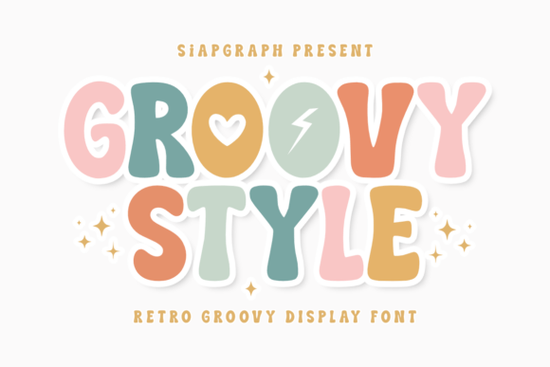
The Groovy Style Font is a retro display typeface built for crafters, designers, and anyone selling print-on-demand products. Inspired by 1970s typography but designed with a modern, playful twist, it features chunky, wavy letters decorated with hearts and lightning bolts. If you need a bold, readable font that's also easy to cut and weed with a vinyl cutter or use in sublimation projects, this one was made with that exact purpose in mind.
What Makes Groovy Style Font Different From Other Retro Fonts?
Plenty of retro fonts exist, but not all of them are practical for crafting. A lot of decorative typefaces look great on screen but turn into a headache when you try to cut them with a Cricut or Silhouette machine. Thin swashes, tight kerning, and overly detailed curves can make weeding take forever.
Groovy Style Font avoids those problems. The letterforms are chunky and bold, with clean lines that hold up well on vinyl, HTV, and printed stickers. The wavy, playful shape gives it that unmistakable 1970s feel, while the built-in symbols (like hearts and lightning bolts) add personality without requiring extra design elements.
Compared to something like a more classic display typeface with elegant curves, Groovy Style leans heavily into fun and energy. It's not trying to be subtle and that's exactly why it works so well for casual, high-energy designs.
Can I Use This Font For Vinyl And Sublimation Projects?
Yes, and that's really where this font shines. The designer specifically optimized it for the crafting community, which means:
- Vinyl decals The bold strokes make weeding straightforward, even for beginners.
- HTV for t-shirts Letters are thick enough to hold up on heat transfer vinyl without peeling or tearing.
- Sublimation prints Clean edges translate well to sublimation mugs, tote bags, and coasters.
- SVG cut files If you sell cut files on Etsy or your own shop, this font gives your designs a marketable retro look that people actually search for.
If you work with display fonts regularly, pairing Groovy Style with something softer like a rounded, friendly display option can create nice contrast in multi-font designs.
What Types Of Projects Look Best With A Groovy Retro Typeface?
This font fits naturally into a wide range of projects. Here are some ideas that work especially well:
- Back to School designs Think locker posters, teacher t-shirts, and school spirit stickers.
- Birthday party invitations The playful vibe is perfect for kids' and teens' birthday themes.
- Music festival merch Retro and festival culture go hand in hand. Band tees, wristband designs, and event posters all benefit from a 70s-inspired typeface.
- Summer party supplies Pool party invites, BBQ banners, and sunny-themed stickers.
- Social media graphics Bold, eye-catching text that stands out in a scrolling feed.
- Print on Demand products Mugs, notebooks, phone cases, and apparel with groovy slogans.
For POD sellers especially, a font like this targets a real customer demand. Retro-themed products consistently perform well on platforms like Etsy, Amazon Merch, and Redbubble. Using a typeface that's both visually distinctive and technically production-ready saves you time and reduces the chance of print quality issues.
If you like exploring bold, character-driven typefaces for your shop, a colorful, vibrant display font can complement the groovy aesthetic in a product collection. Meanwhile, a distressed cartoon-style option works well if you want to branch into slightly edgier retro designs.
How Do I Get The Best Results When Pairing Groovy Style Font?
Because Groovy Style Font is bold and decorative, it works best as your headline or feature font. For body text or supporting copy, choose something simpler and more readable. Clean sans-serifs or easygoing handwritten fonts tend to pair well without competing for attention.
A few pairing approaches that tend to work:
- Bold headline + simple body Use Groovy Style for the main word or phrase, then a clean font for supporting text.
- Mix retro styles Combine it with a vintage-inspired classic typeface for a layered, nostalgic look.
- Use the built-in symbols The hearts and lightning bolts are part of the font itself, so you don't need extra dingbat fonts or clipart to dress up your design.
Quick Checklist Before You Start Designing
- ✅ Download the font and install it on your system or design software
- ✅ Adjust letter spacing if needed chunky fonts sometimes benefit from slightly tighter kerning
- ✅ Pair with a simpler secondary font for any longer text
- ✅ Use the included symbols to add personality without extra assets